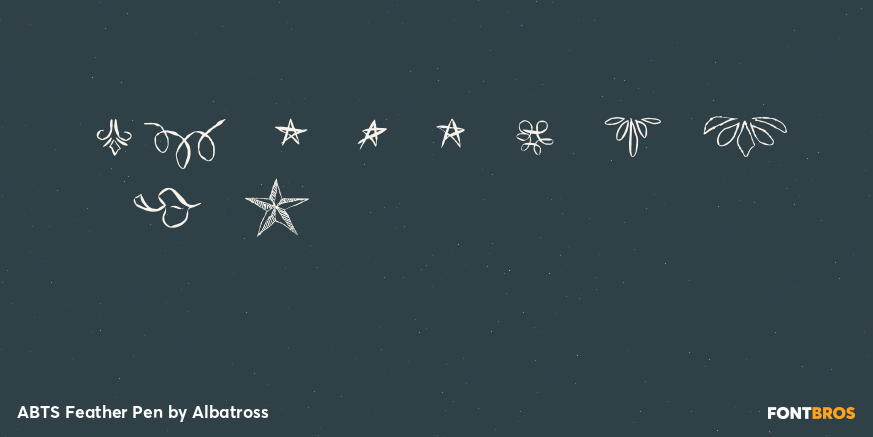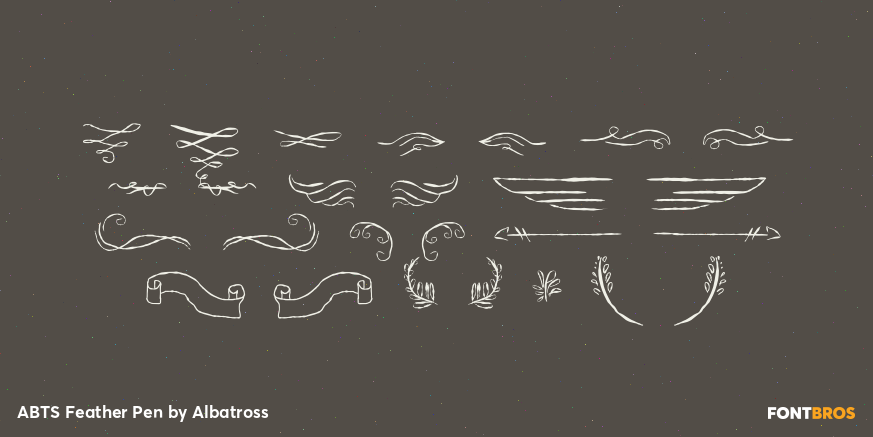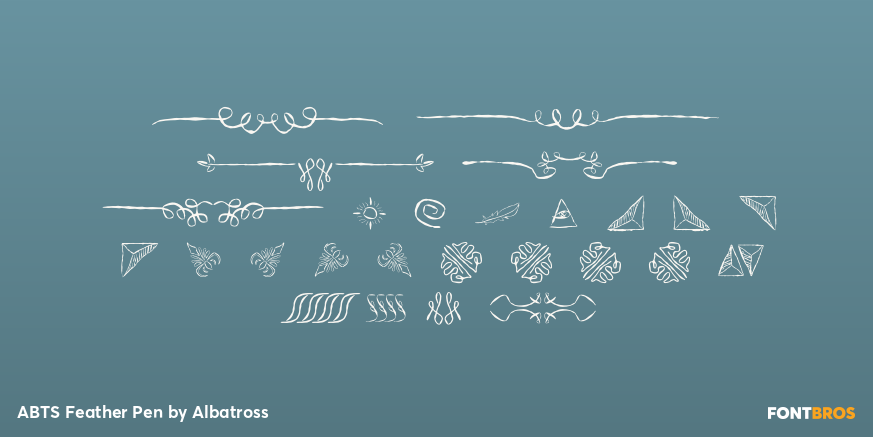
ABTS Feather Pen
Font Family by Albatross
ABTS Feather Pen is a dingbat font family with a hand-drawn, feather-inspired feel that brings a light, decorative touch to the page. Its illustrated character makes it a natural choice when you want accents, symbols, or embellishments that feel a little more crafted and expressive than standard ornaments.
Offered as a single style from Albatross, this font is well suited to display work that benefits from ornamental detail, from invitations and packaging to posters, branding pieces, and creative digital graphics. If you’re looking for a distinctive dingbat that can add personality and visual texture, this one offers a simple way to introduce a more whimsical, drawn-by-hand note.